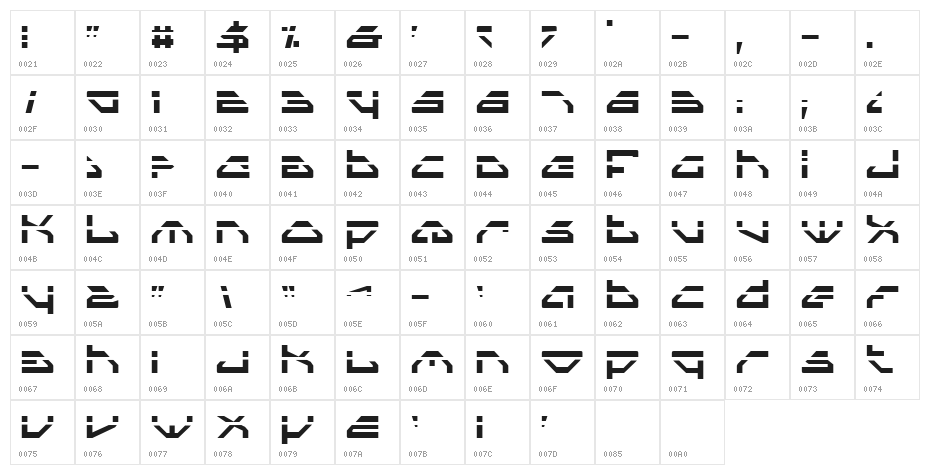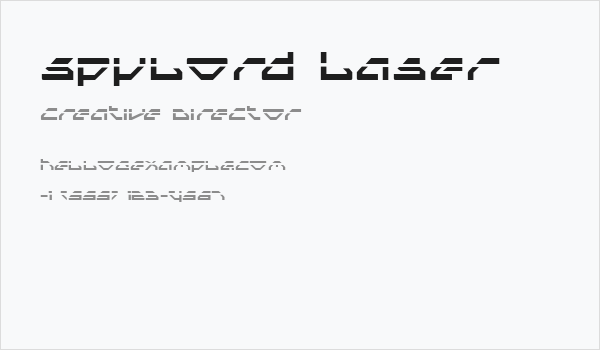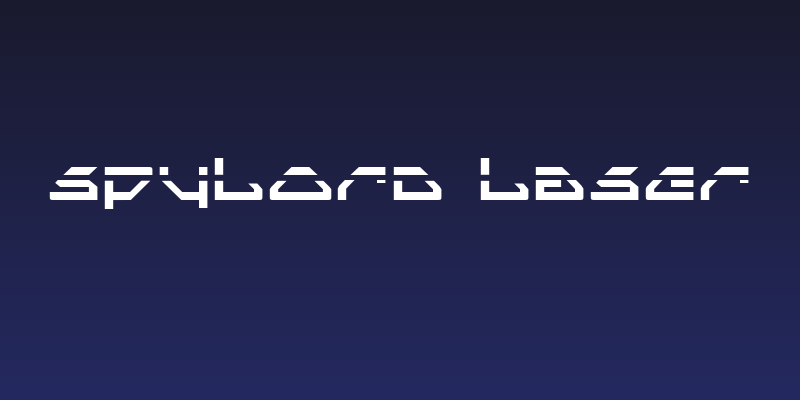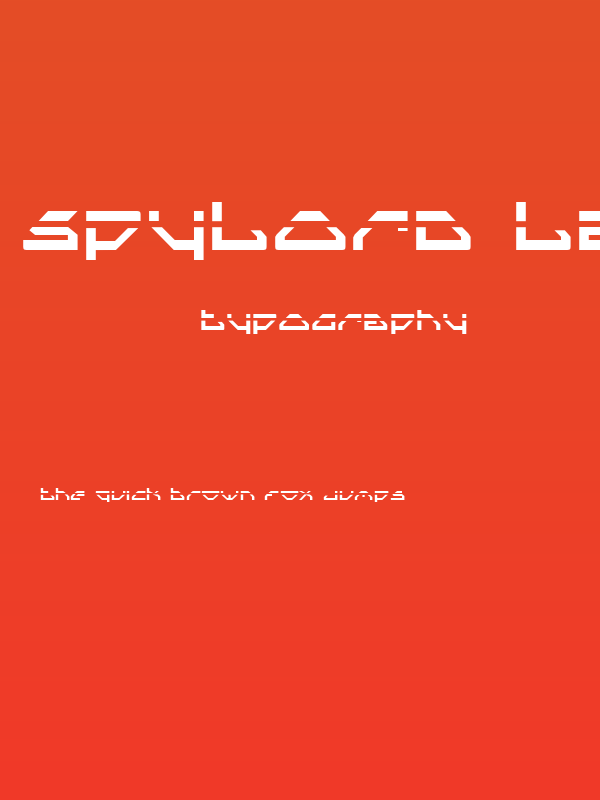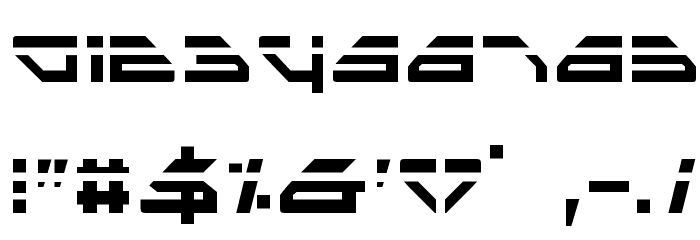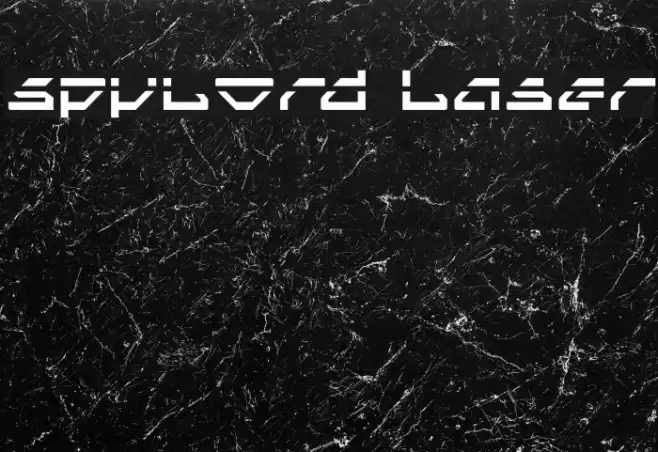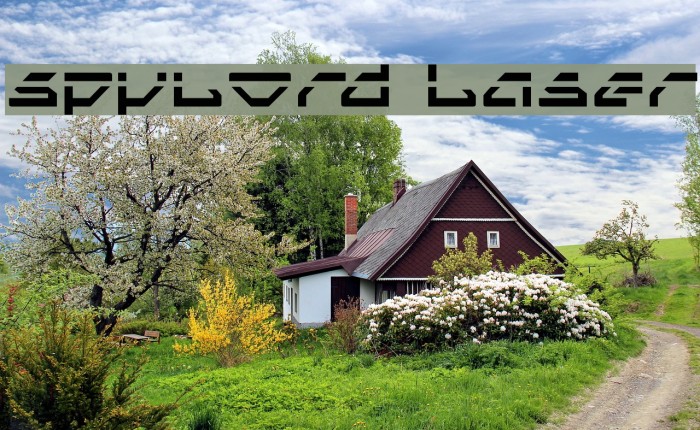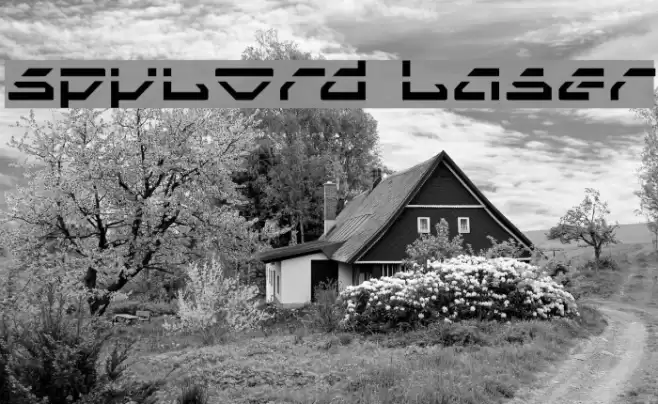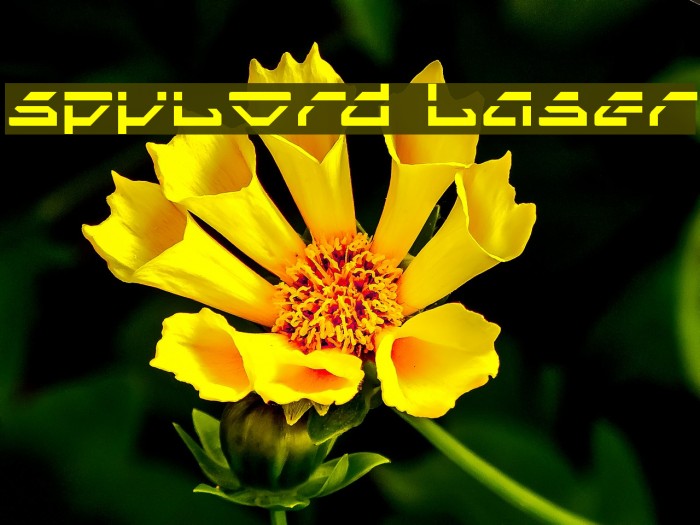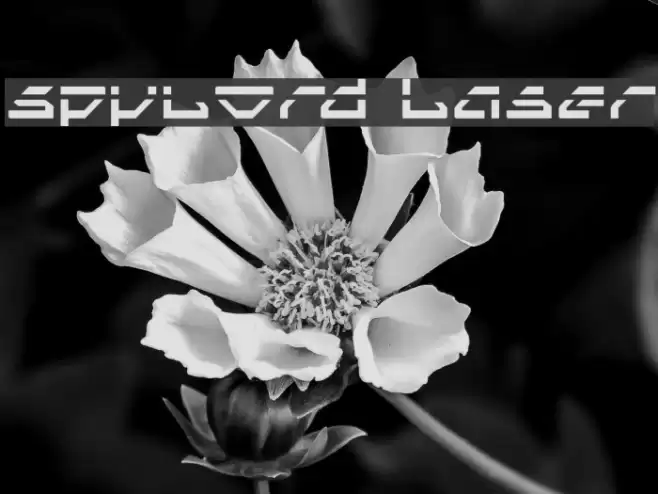
Spylord Laser Font
Spylord Laser Description
This font features a futuristic and geometric design, characterized by sharp angles and a digital aesthetic. The characters are constructed with a series of straight lines and angular cuts, giving it a distinctly modern and tech-inspired look. The uppercase and lowercase letters maintain a consistent style, with a uniform height and width that contributes to its cohesive appearance. The numbers and special characters follow the same design principles, ensuring a seamless integration across all glyphs. This font is ideal for projects that require a bold and innovative visual impact, such as technology branding, sci-fi themes, or digital interfaces. Its unique style makes it stand out, while still being legible and functional.
| Proposed Projects | Ideal for technology branding, sci-fi themes, digital interfaces, and innovative design projects. |